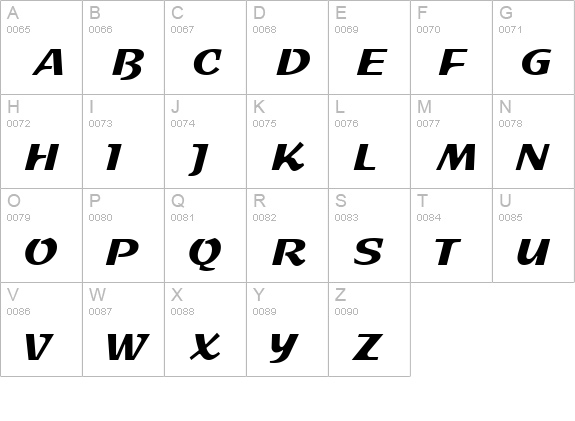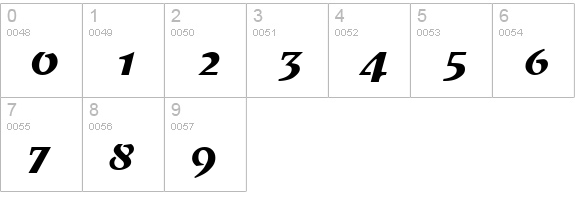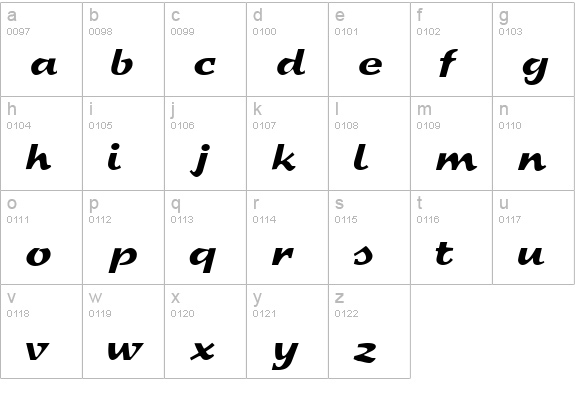
DeccaDisplaySSK Regular Font Details
DeccaDisplaySSK Regular is the standard, neutral variant in the DeccaDisplaySSK typeface family \xE2\x80\x94 well suited to general body text, paragraphs, and standard typographic work.
DeccaDisplaySSK Regular font is a versatile and elegant typeface that exudes a classic and timeless charm. With its clean lines and modern aesthetic, this font is perfect for a wide range of design projects, from branding to editorial design. The DeccaDisplaySSK Regular font is available for free download at FontsMarket.com, making it easily accessible for designers and creatives looking to add a touch of sophistication to their work. Embrace the beauty of this font and elevate your designs with its sleek and stylish appearance.